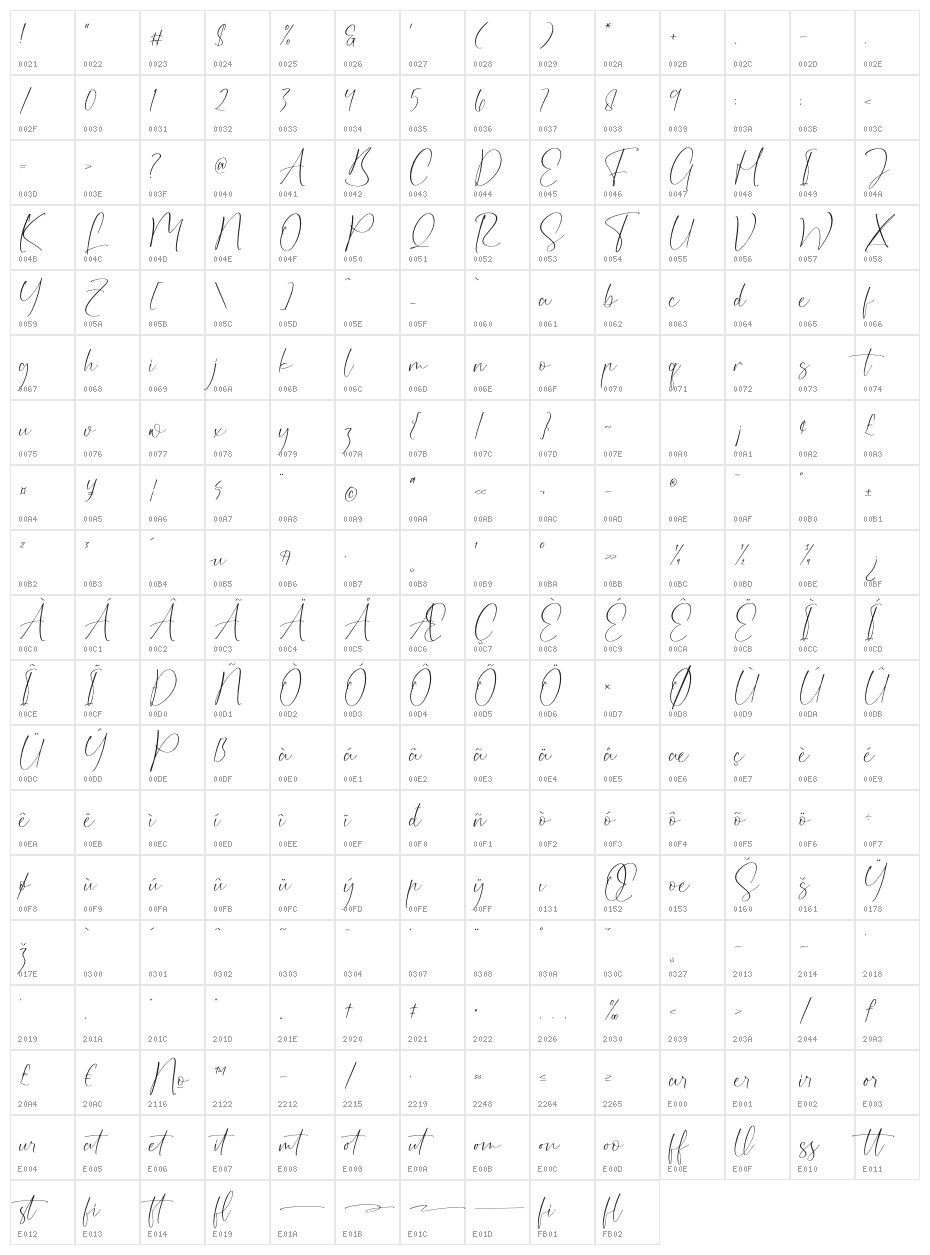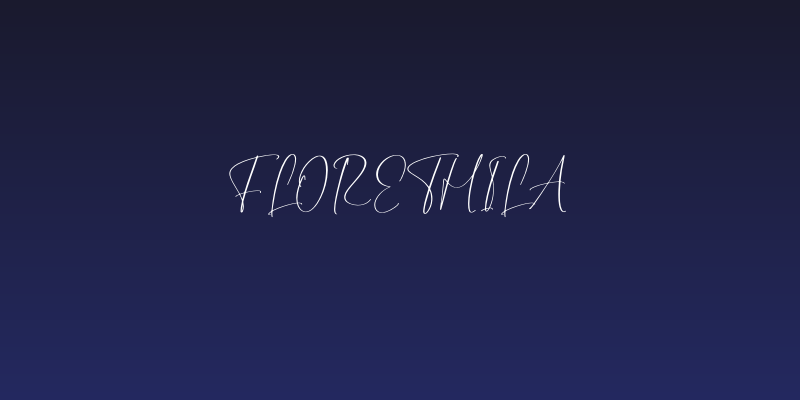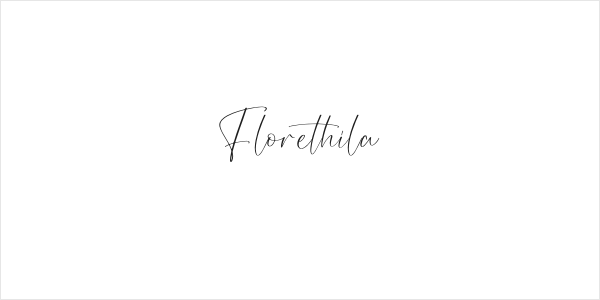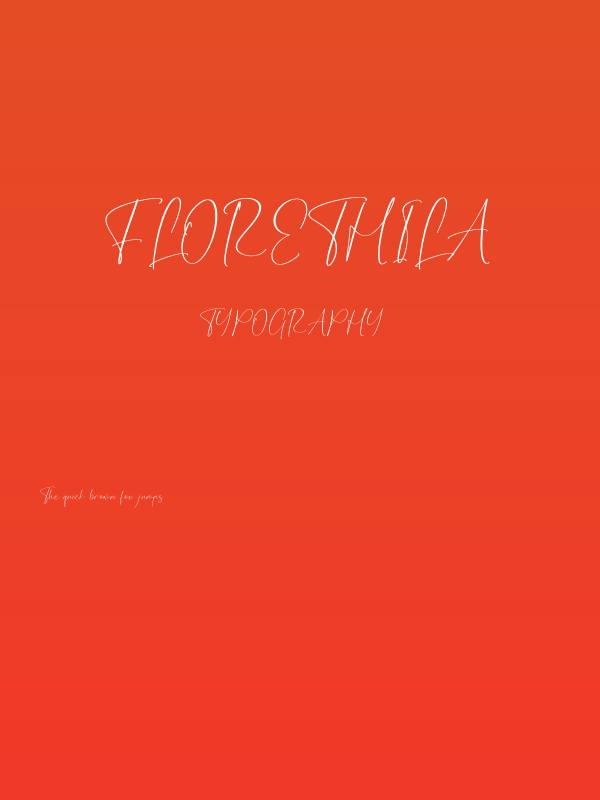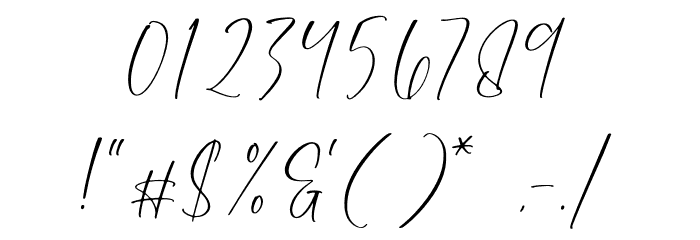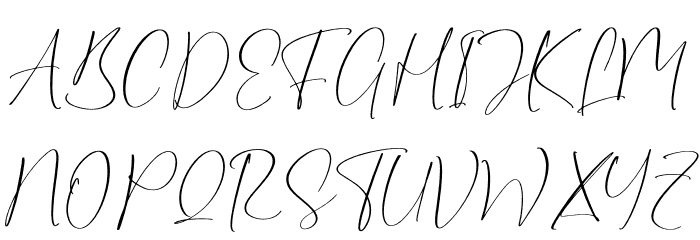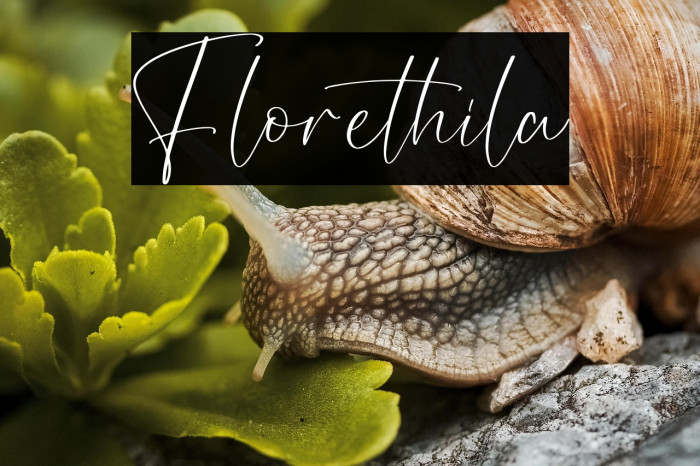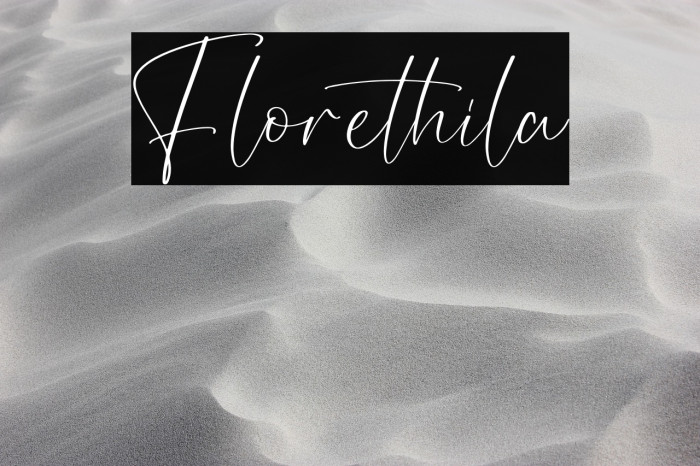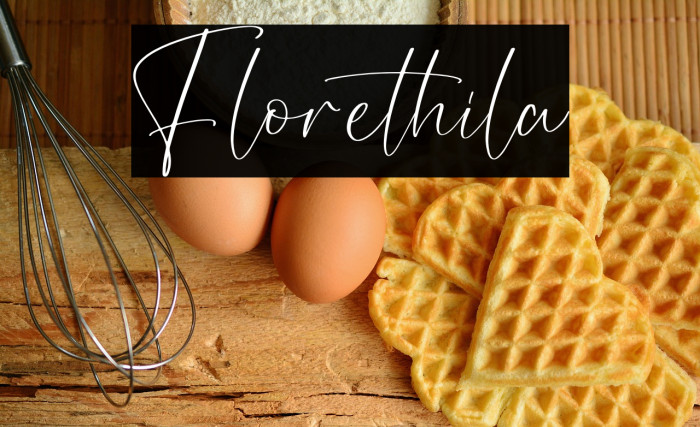
Florethila Font
Florethila Description
A flowing, elegant script font with a handwritten style, featuring thin strokes and a casual, artistic appearance.
| Use Case | Logos, Invitations |
| Proposed Projects | Invitations, greeting cards, personal branding. |